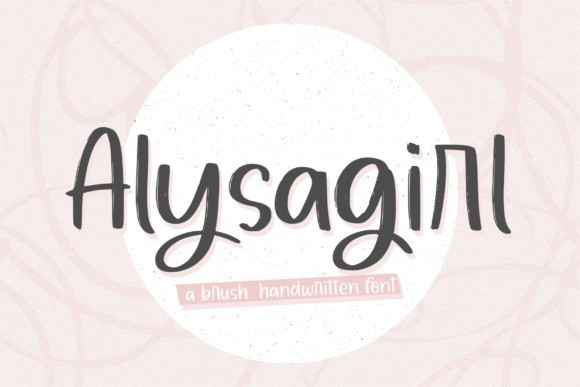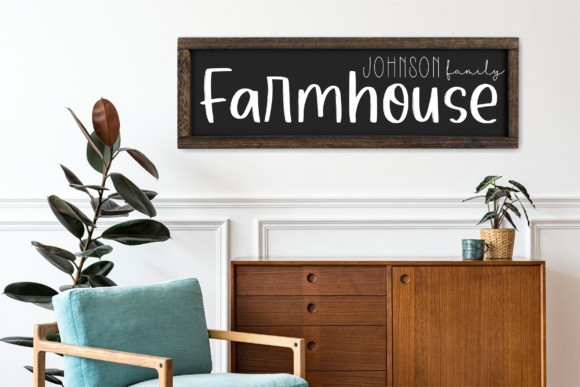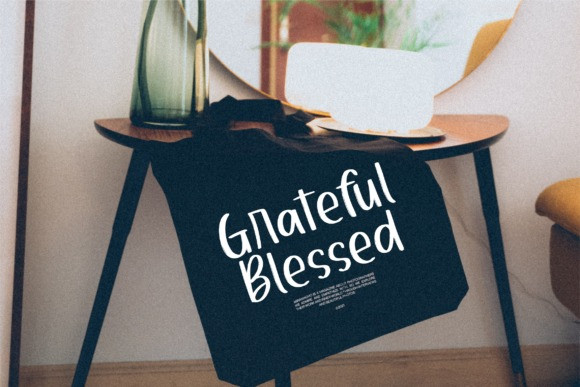
Alysagirl Font
Alysagirl is a Brush Handwritten Font.
Alysagirl is perfect for product packaging, branding project, magazine, social media, weddings, or just used to express words above the background.